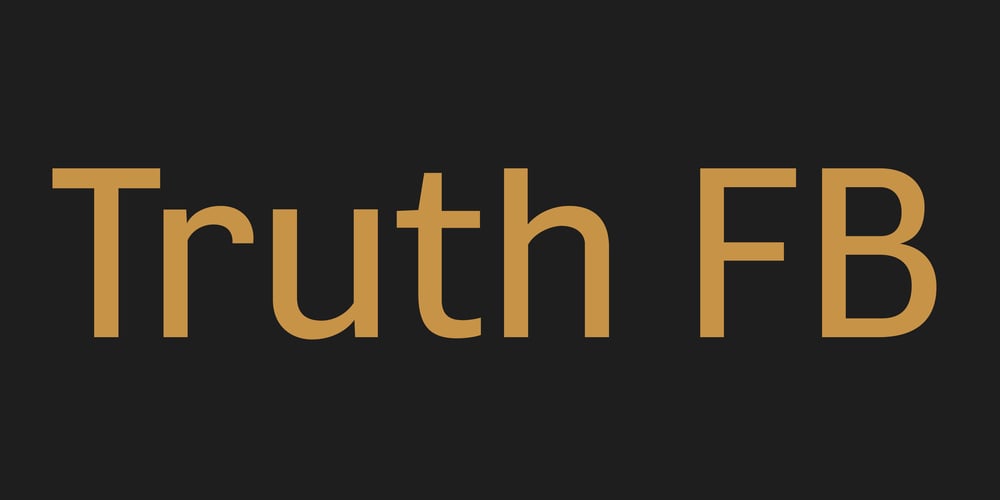
Truth FB
Truth FB font
Truth FB Font Family was designed by David Berlow and published by Font Bureau. Truth FB contains 8 styles and family package options. In 1994, Apple® Computer, Inc., asked David Berlow for “a future gothic” to replace Chicago®, their system font. Now called Charcoal®, the design was released with Mac® OS 8 in 1996. Through operating system bundles it found its way into every form of design. Released from constraint, Berlow designed Truth FB, a radical series with a spectrum of seven weights. Like its forbear, Truth FB opens new design avenues; FB 2005